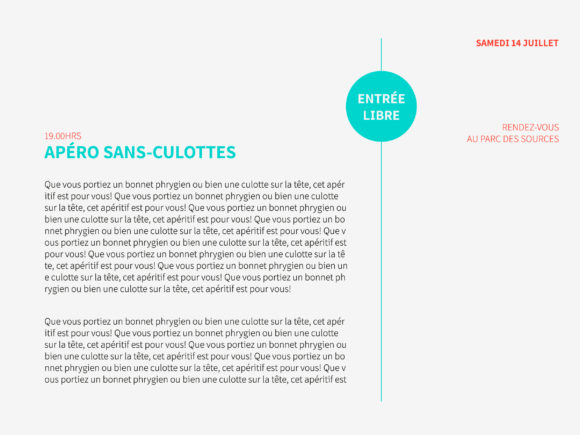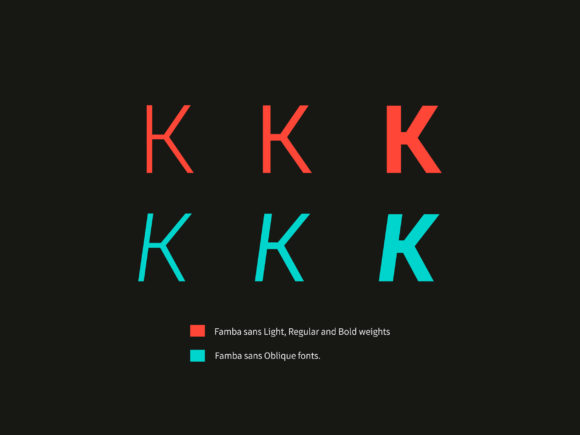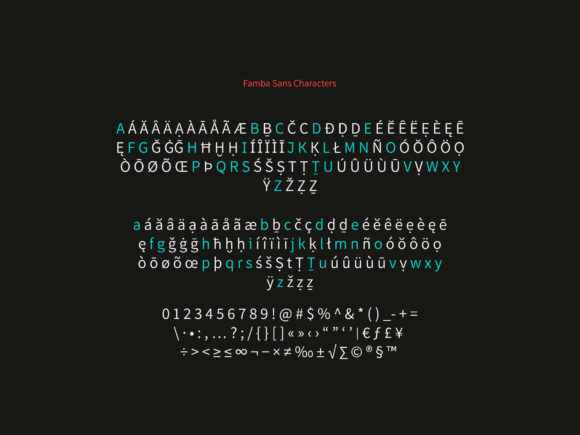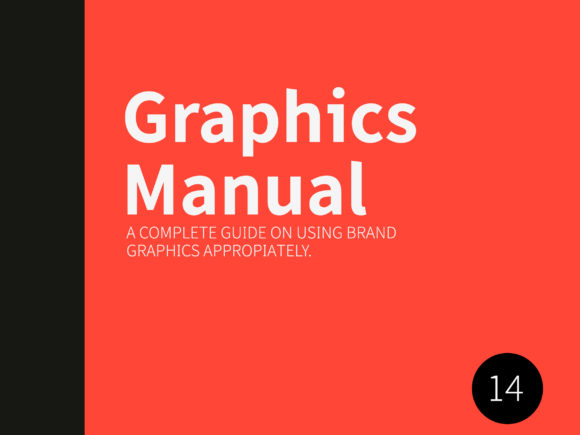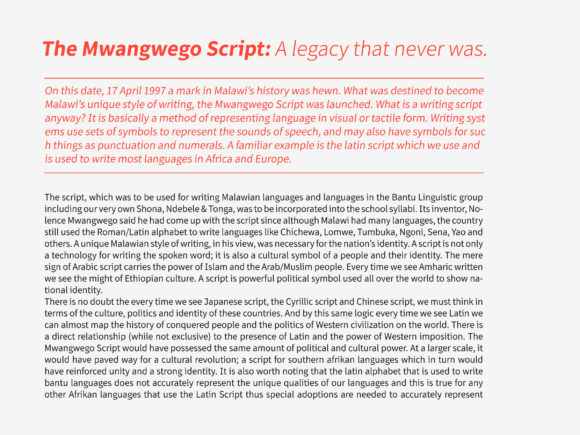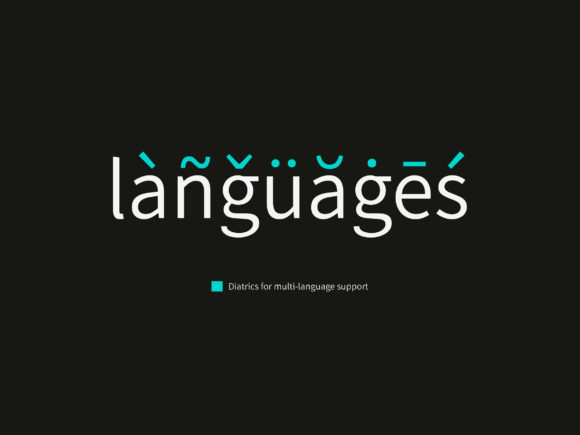
Famba Font: Elevate Your Design with a Timeless Sans Serif
In the world of typography, fonts play a crucial role in conveying the tone and aesthetic of a design project. For designers and crafters seeking a sophisticated and classic feel, the Famba Font is an excellent choice. This cool and simple sans serif font boasts a timeless appeal that can elevate any design project to new heights.
The Essence of Famba Font
Famba Font is a sans serif typeface characterized by its clean lines, minimalist aesthetic, and effortless elegance. Its simple yet refined design makes it an ideal choice for a wide range of applications, from branding and advertising to packaging and digital media. The font’s versatility stems from its ability to blend seamlessly into various design contexts, ensuring that your project looks polished and professional.
Key Features of Famba Font
- Timeless Appeal: Famba Font’s classic design ensures that it remains relevant and stylish, even as design trends evolve.
- Sophisticated Feel: The font’s clean lines and minimalist aesthetic evoke a sense of sophistication and elegance, perfect for high-end brands and luxury products.
- Versatility: Famba Font can be used across various mediums, including print, digital, and web design, making it a valuable addition to any designer’s toolkit.
- Easy to Read: The font’s clear and concise design ensures excellent readability, even at smaller font sizes.
Design Applications for Famba Font
Famba Font’s versatility makes it suitable for a wide range of design applications, including:
- Branding and Identity: Create a lasting impression with Famba Font, perfect for logos, business cards, and letterheads.
- Advertising and Marketing: Use Famba Font to add a touch of sophistication to your ad campaigns, brochures, and flyers.
- Packaging Design: Elevate your product packaging with Famba Font, ideal for labels, tags, and product descriptions.
- Digital Media: Famba Font is perfect for website design, social media graphics, and digital marketing materials.
Why Choose Famba Font?
With so many fonts available, why choose Famba Font for your design project? Here are a few compelling reasons:
- Unique yet Familiar: Famba Font’s design strikes a perfect balance between uniqueness and familiarity, ensuring your project stands out without being too avant-garde.
- High-Quality Design: Crafted with attention to detail, Famba Font is a high-quality typeface that reflects professionalism and attention to detail.
In conclusion, Famba Font is a cool and simple sans serif font that brings a timeless appeal to any design project. Its sophisticated feel, versatility, and excellent readability make it an excellent choice for designers and crafters seeking to elevate their designs. Whether you’re working on branding, advertising, packaging, or digital media, Famba Font is a valuable asset that can help you achieve your design goals.